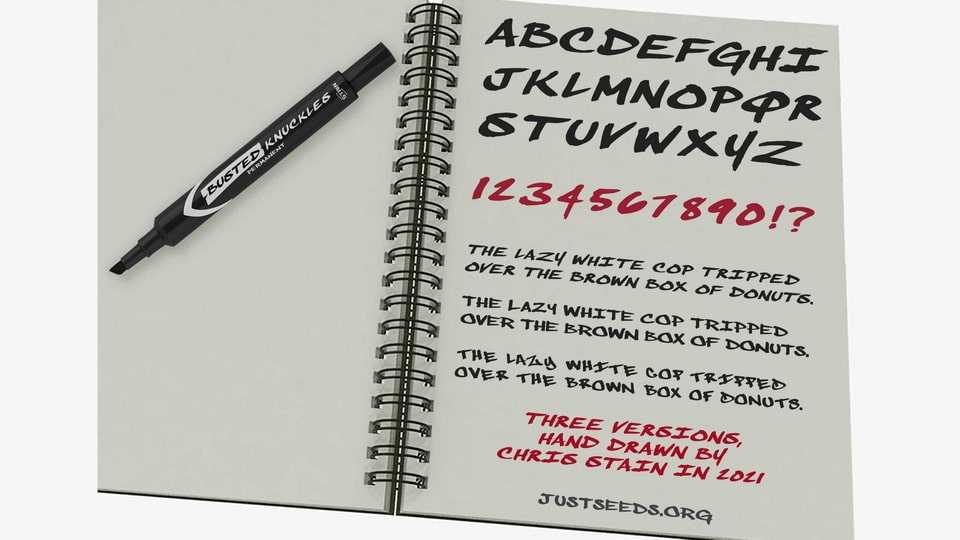
Download Busted Knuckles typeface a delightful collection of handwritten fonts designed to add a playful and informal touch to your projects. Ideal for headlines, logos, or any design element where you want to make a statement with a touch of informality.